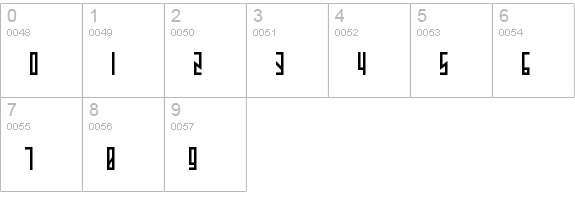
Stretched Electrons Font Details
Stretched Electrons is a free for personal use font in the Modern > Techno category, designed by Darrell Flood. It has been downloaded 53 times and is available for Windows, Mac and Linux.
The Stretched Electrons font is a unique and eye-catching typeface that will add a modern and dynamic touch to your designs. With its elongated and stretched letterforms, this font exudes a sense of energy and movement. Perfect for projects that require a bold and futuristic look, Stretched Electrons font is sure to make a statement.